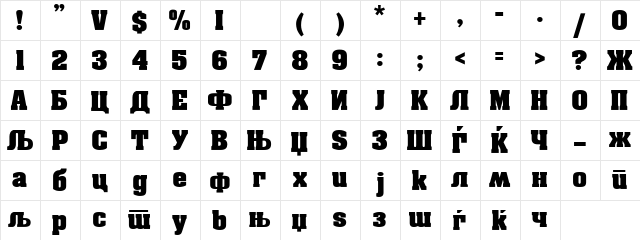
Managua Bold Cyrilic Font Preview
Managua Bold Cyrilic
Design Context for Managua Typeface
Managua takes a measured approach to typography — its balanced proportions and neutral character make it a reliable workhorse for both digital and print work. Its bold stroke weight gives it real presence on the page.